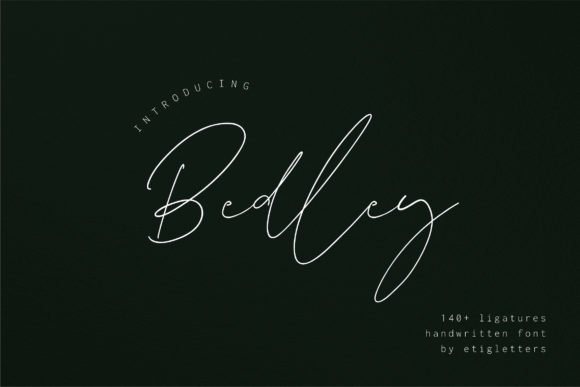
Introduction to Bedley Font
Bedley is a relaxed and timeless handwritten font.
It looks stunning on wedding invitations, thank you cards, quotes, greeting cards, logos, business cards and every other design which needs a handwritten touch This font is PUA encoded which means you can access all of the glyphs and swashes with ease.
Key Features of Bedley Font